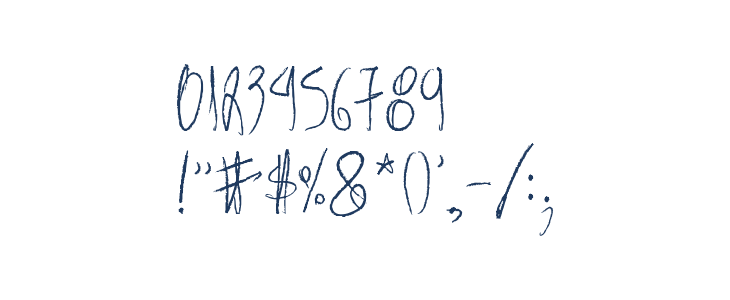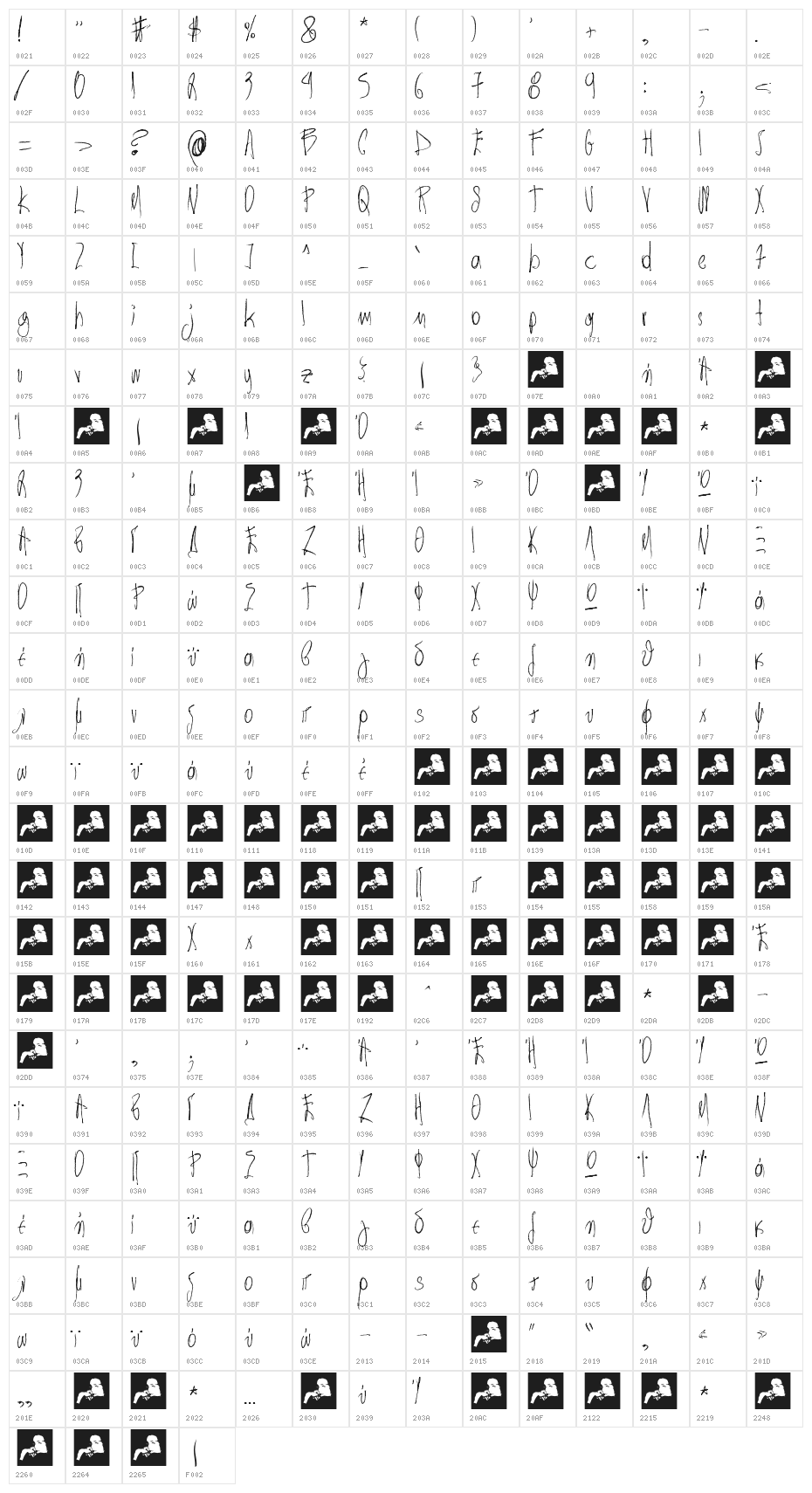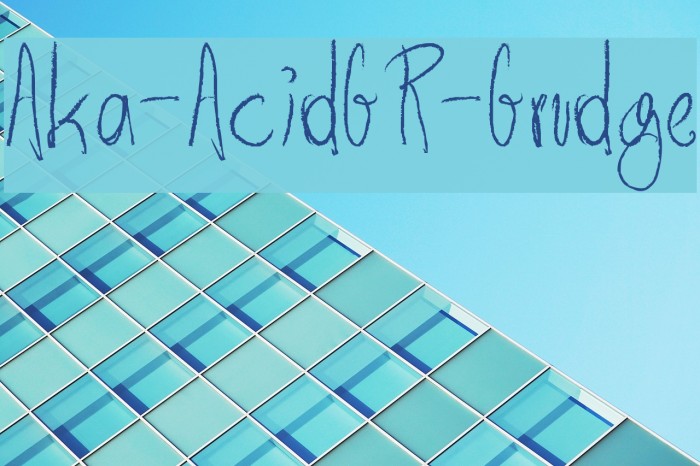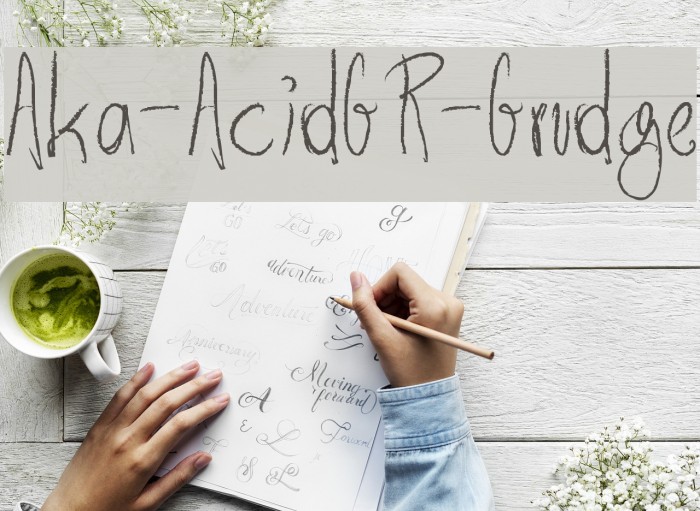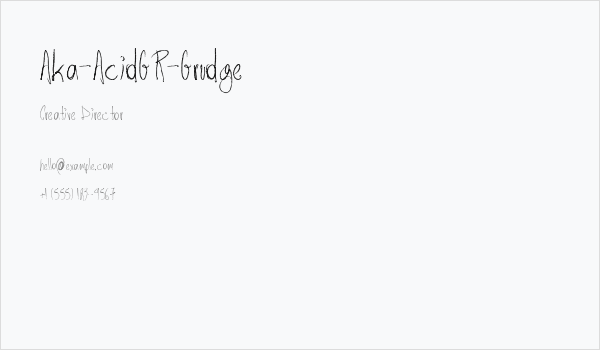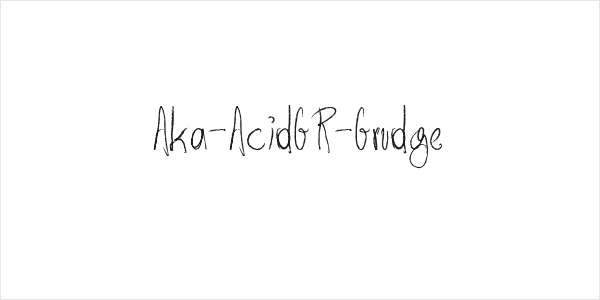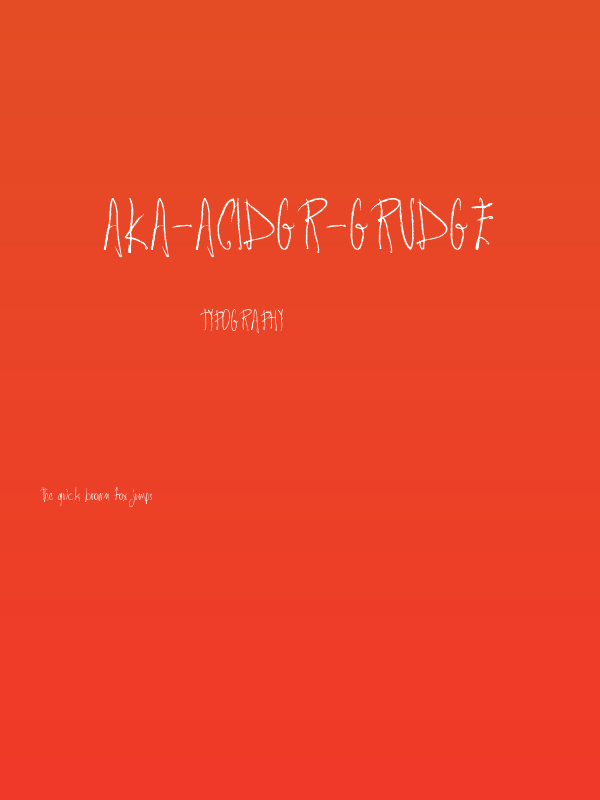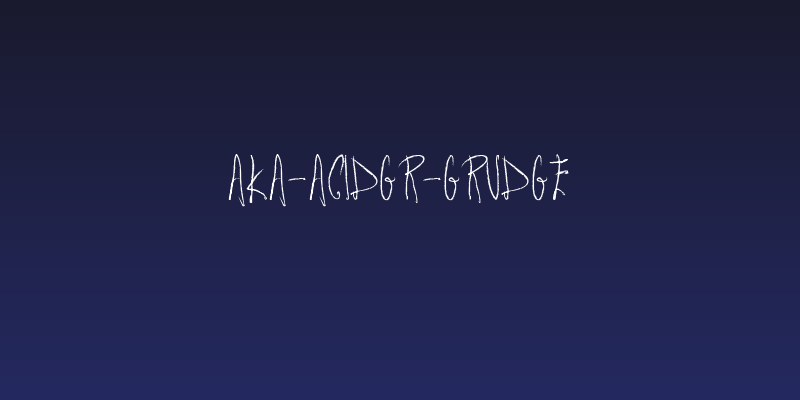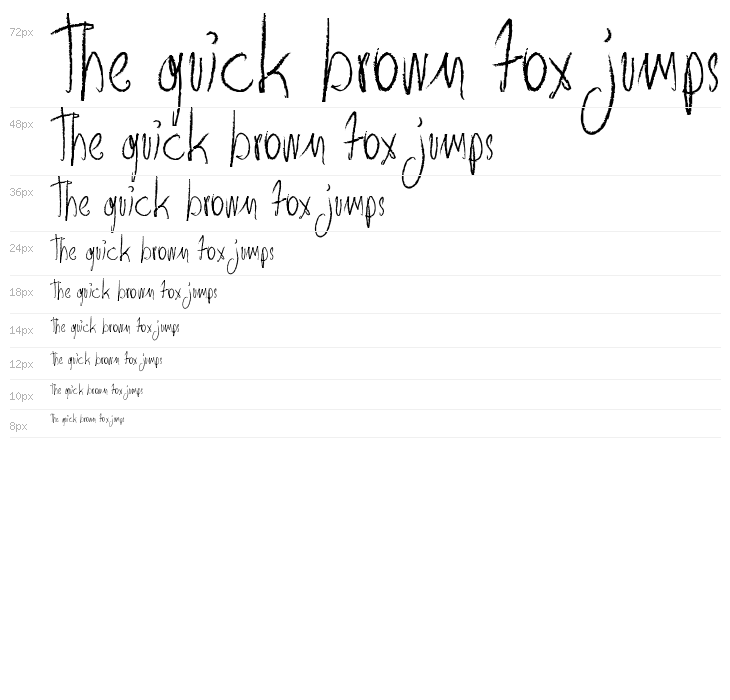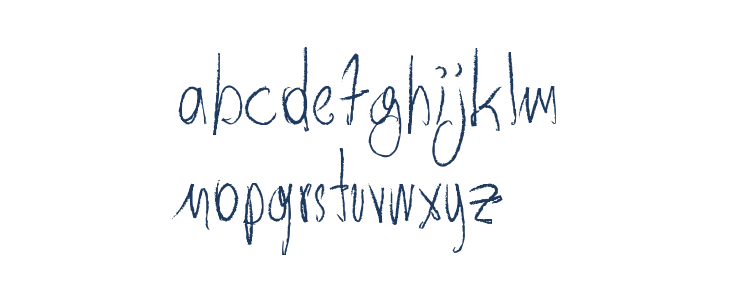
Aka-AcidGR-Grudge Font
Aka-AcidGR-Grudge Description
This font features a distinctive, hand-drawn style with irregular strokes and a grungy, textured appearance. The characters are tall and narrow, with uneven lines that give a sense of spontaneity and artistic flair. The uppercase and lowercase letters maintain a consistent style, with exaggerated curves and sharp angles. Numbers and special characters follow the same aesthetic, adding to the cohesive look. The overall design is edgy and expressive, making it suitable for projects that require a bold, unconventional look.
| Proposed Projects | Ideal for album covers, street art-inspired designs, edgy posters, and creative branding. |